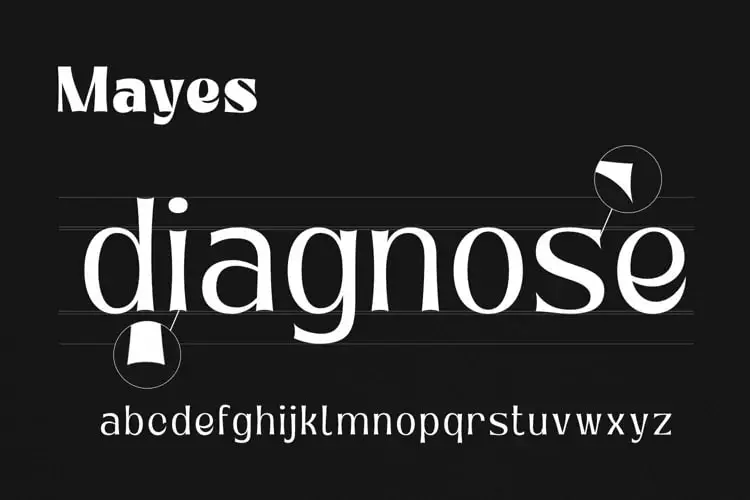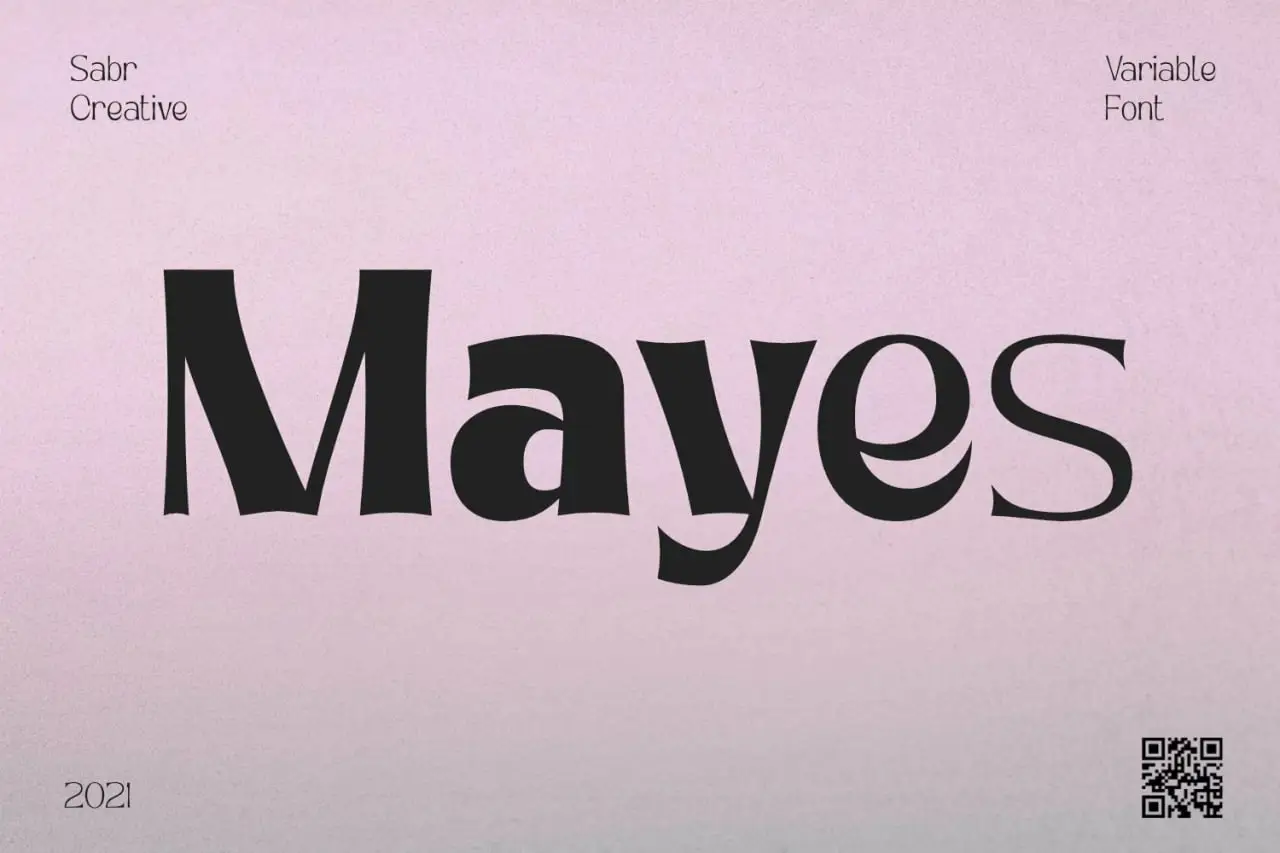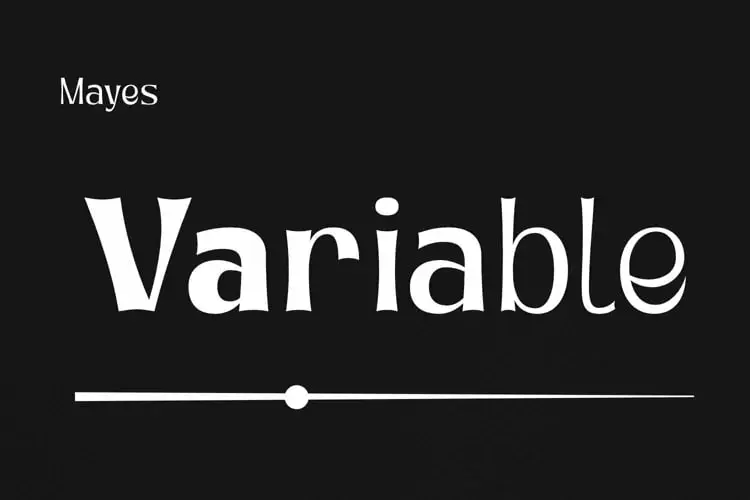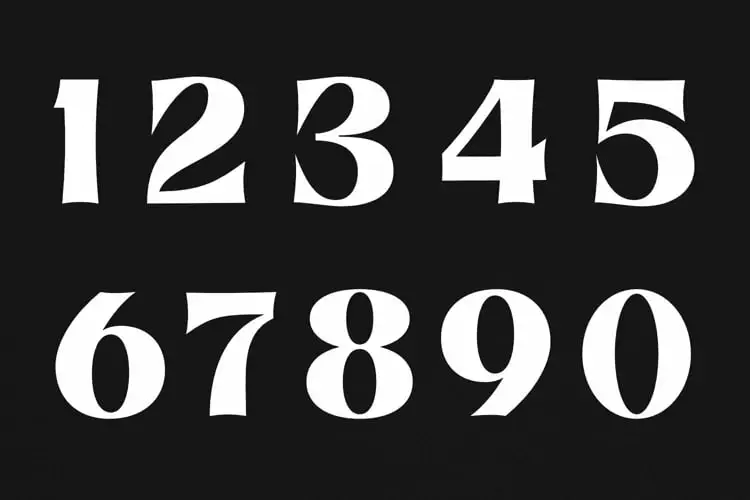
Mayes-Variable Font By © Sabrcreative
The Mayes-Variable Font by © Sabrcreative is a versatile typeface designed to adapt to various design needs. This font offers a range of styles and weights, allowing for seamless integration into both digital and print projects.
Mayes is available in multiple formats including OTF and TTF, ensuring compatibility across different platforms. Its variable nature allows designers to adjust the weight and width, providing a unique typographic experience.
• Ideal for branding and logo design
• Perfect for web and UI design
• Great for print materials like brochures and business cards